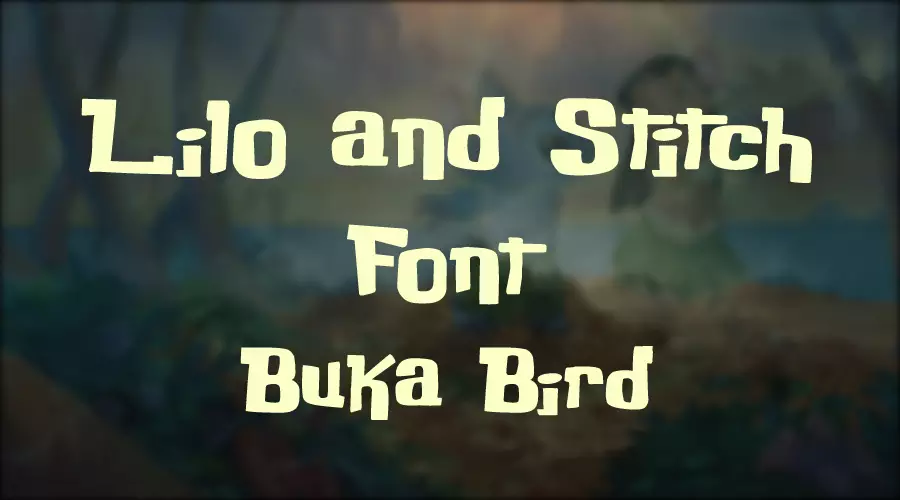
What is the name of the Lilo and Stitch font?
The Lilo and Stitch movie logo is a custom font made by the studio and not widely available for use. But we found a fan-made font named “Buka Bird,” created by Steve Ferrera. The Buka Bird font is inspired by the logo font used in the Lilo and Stitch animation film. This font can be used to recreate the lettering seen in the movie.
If you’re a fan of this popular animated film, then you may want to use the movie logo design in your projects, and you can use this Buka Bird font for it.
The Buka Bird font is a simple and kid-friendly cartoon typeface. It has 655 characters and 92 glyphs and includes characters from various unicode ranges such as Basic Latin, Latin-1 Supplement, Latin Extended-A, Latin Extended-B, Greek and Coptic, Cyrillic, Latin Extended Additional, and General Punctuation.
Lilo and Stitch Movie Logo
The logo for the 2002 Disney animated film Lilo & Stitch features the title of the film in bold white letters with a black outline, set against a bright blue background. The letters of the title are designed to look like they are made out of brushstrokes, with the “L” and “S” in the title being stylized to resemble the shapes of the characters Lilo and Stitch.